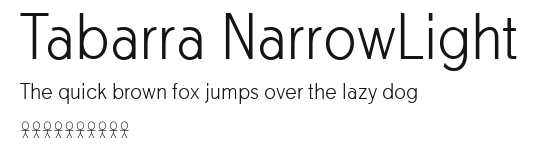
• Font Name: Tabarra NarrowLight
• Full Font Name: Tabarra NarrowLight
• Designer: deFharo
• Manufacturer: Fernando Haro
• Description: Font Sans-serif very readable with advanced OpenType and decorative swashes to the composition of complex texts.
About Tabarra NarrowLight.ttf
Tabarra NarrowLight.ttf is a modern, elegant sans-serif font designed for ultimate readability and visual harmony. Perfect for branding, headlines, web design, and print materials.